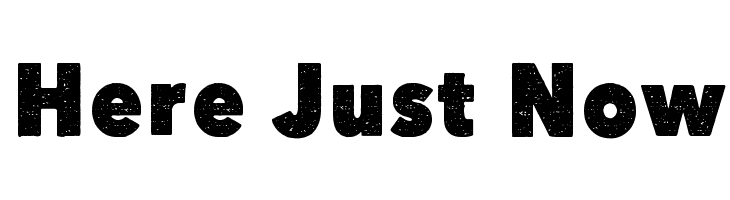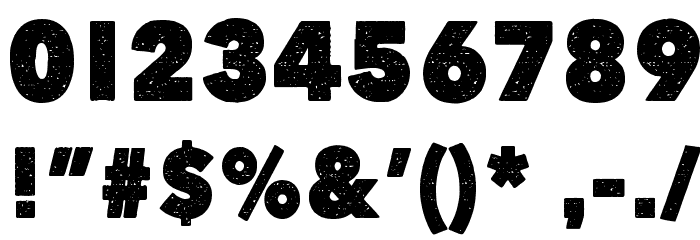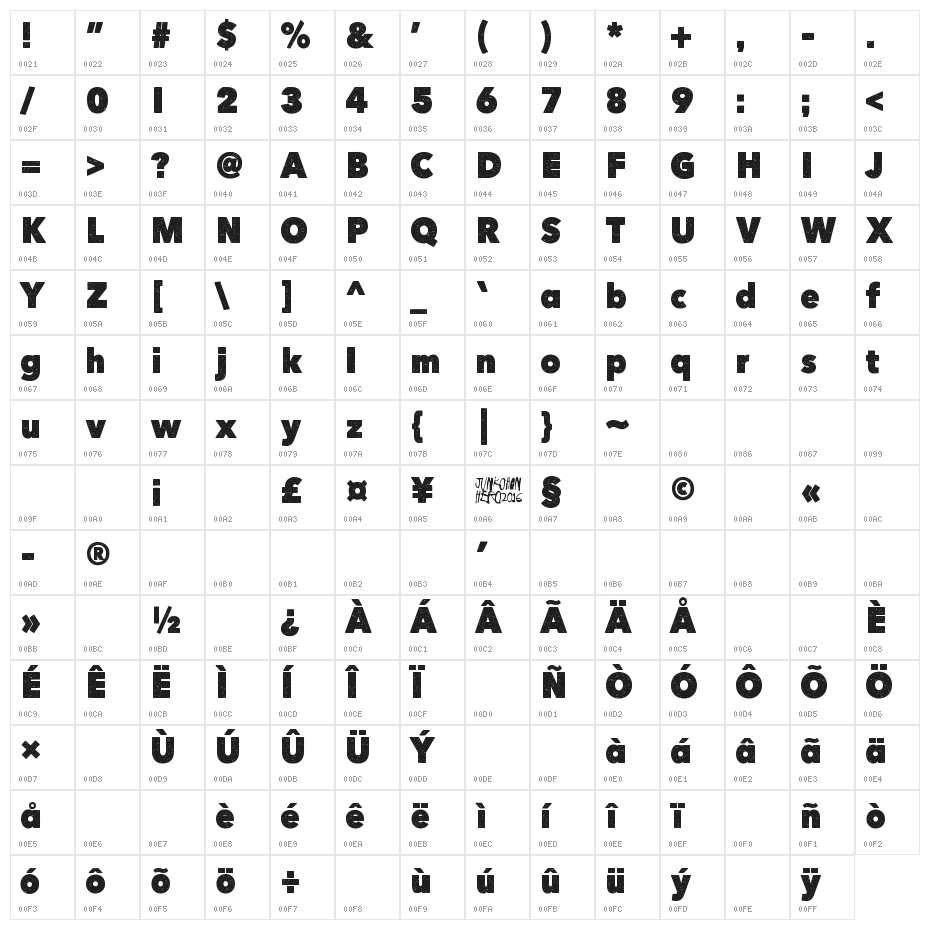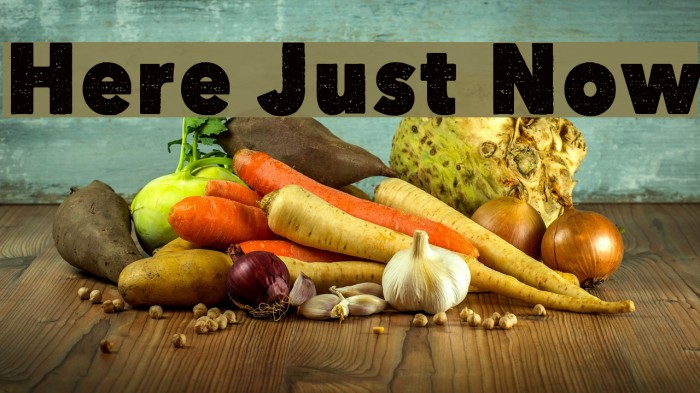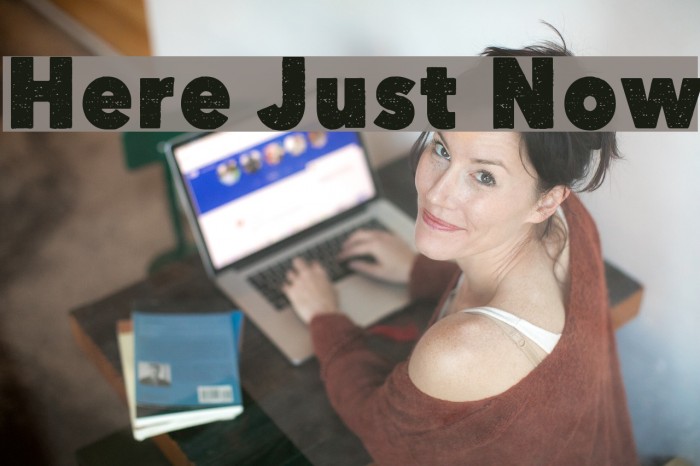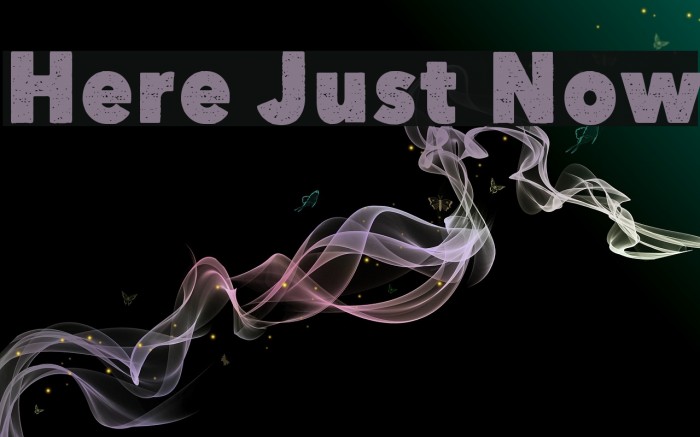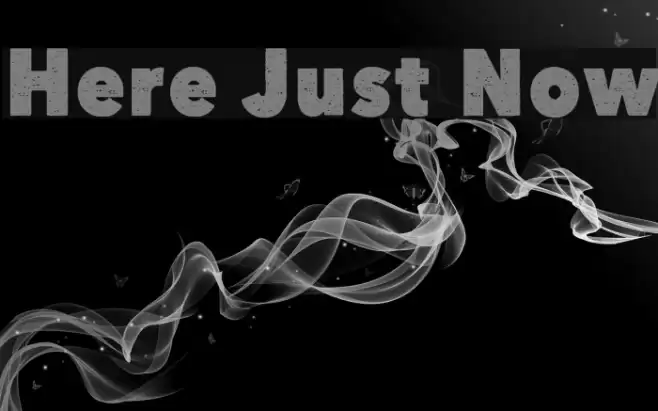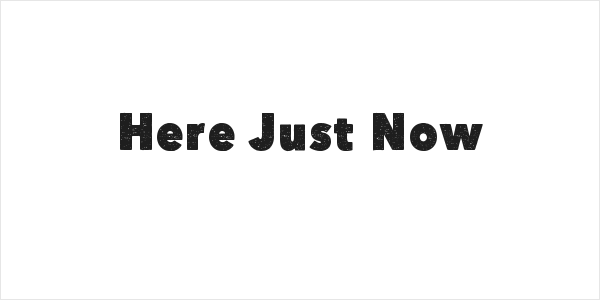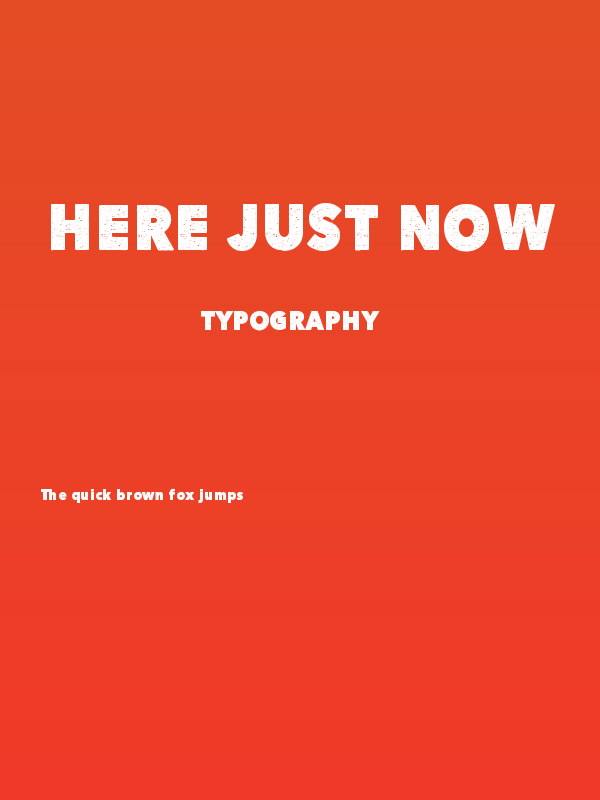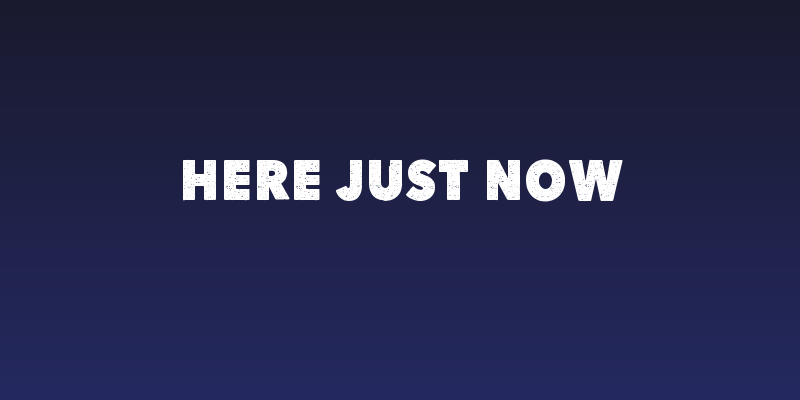
Here Just Now Font
Here Just Now Description
This font features a bold, impactful style with a distressed texture that gives it a vintage, worn appearance. The characters are uniformly thick, creating a strong presence on the page. The uppercase and lowercase letters maintain a consistent height and width, contributing to a cohesive look. The numbers and special characters are designed with the same boldness and texture, ensuring they blend seamlessly with the alphabetic characters. This font's unique texture adds character and depth, making it ideal for designs that require a touch of ruggedness or nostalgia.
| Proposed Projects | Ideal for posters, logos, branding, and any design requiring a vintage or rugged aesthetic. |